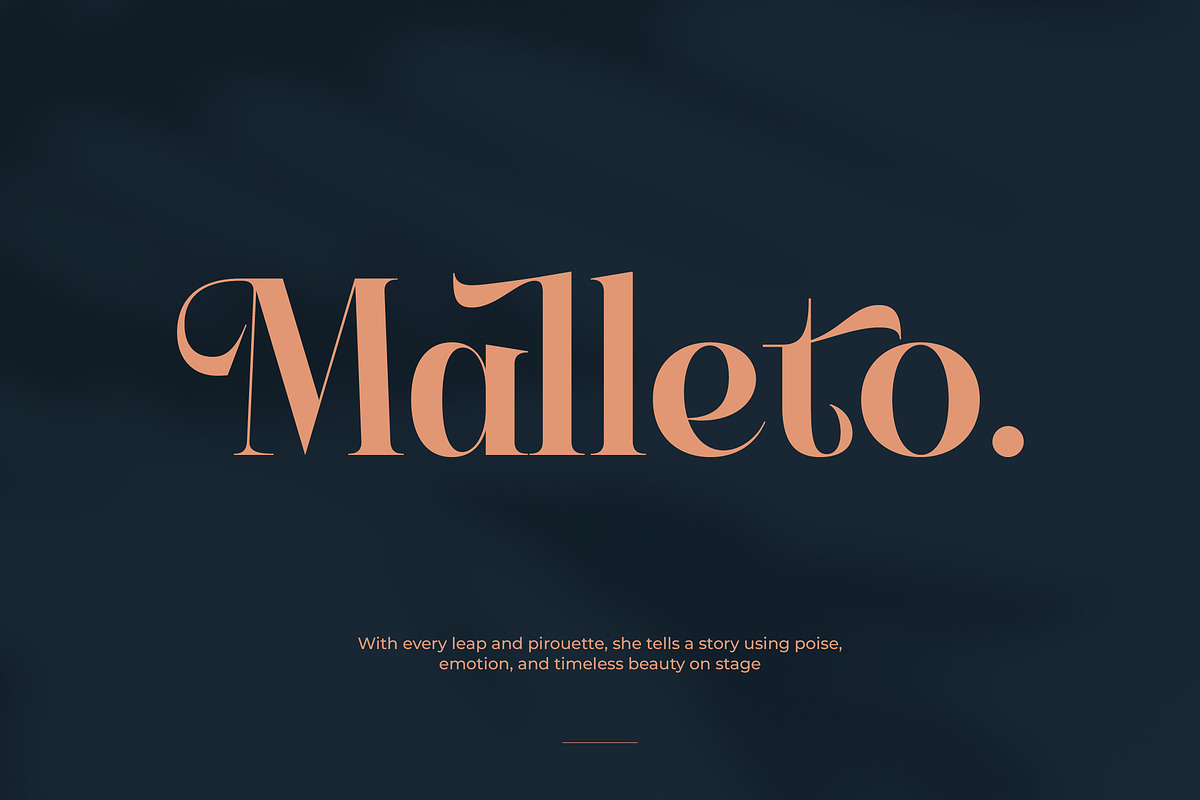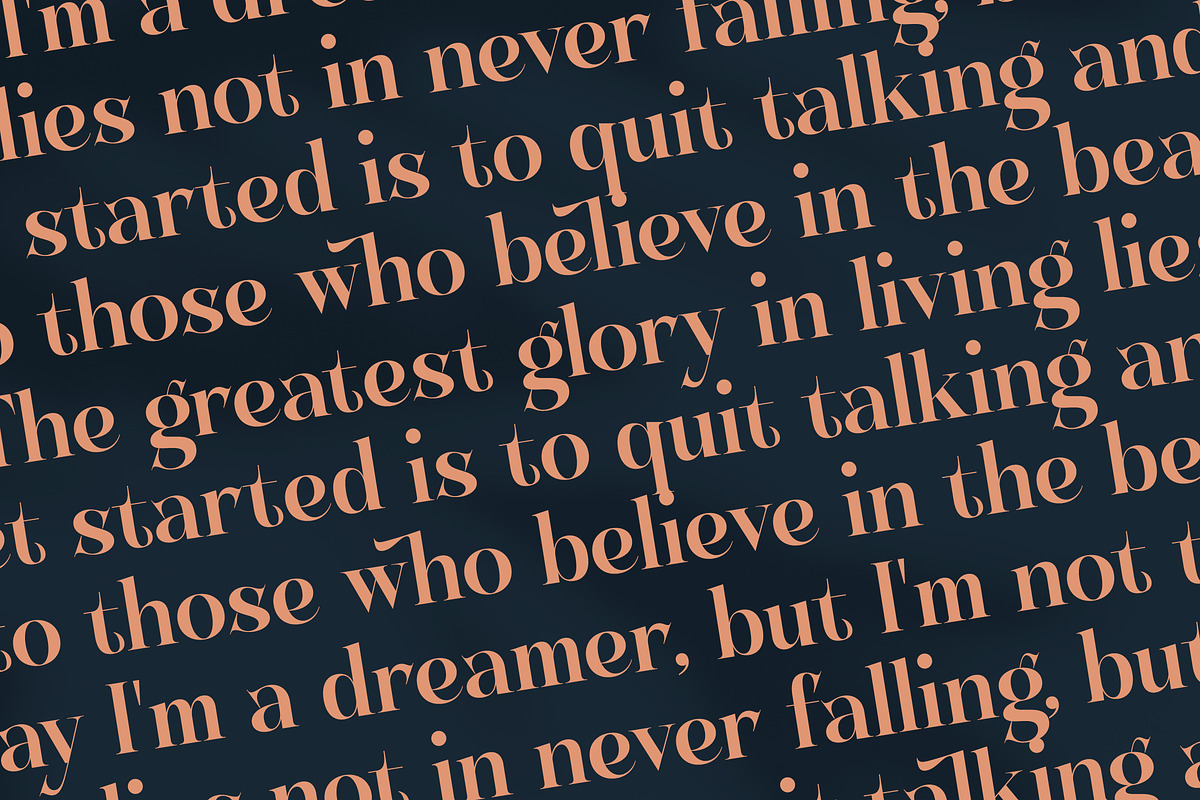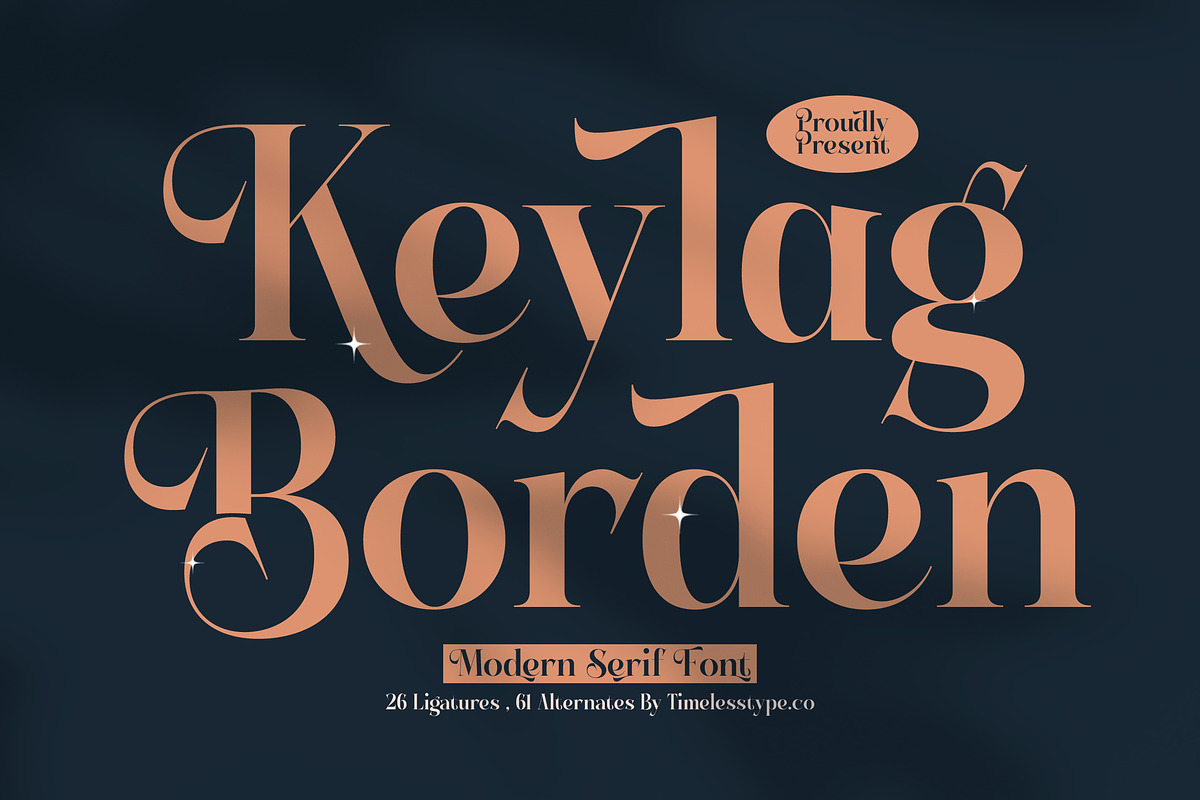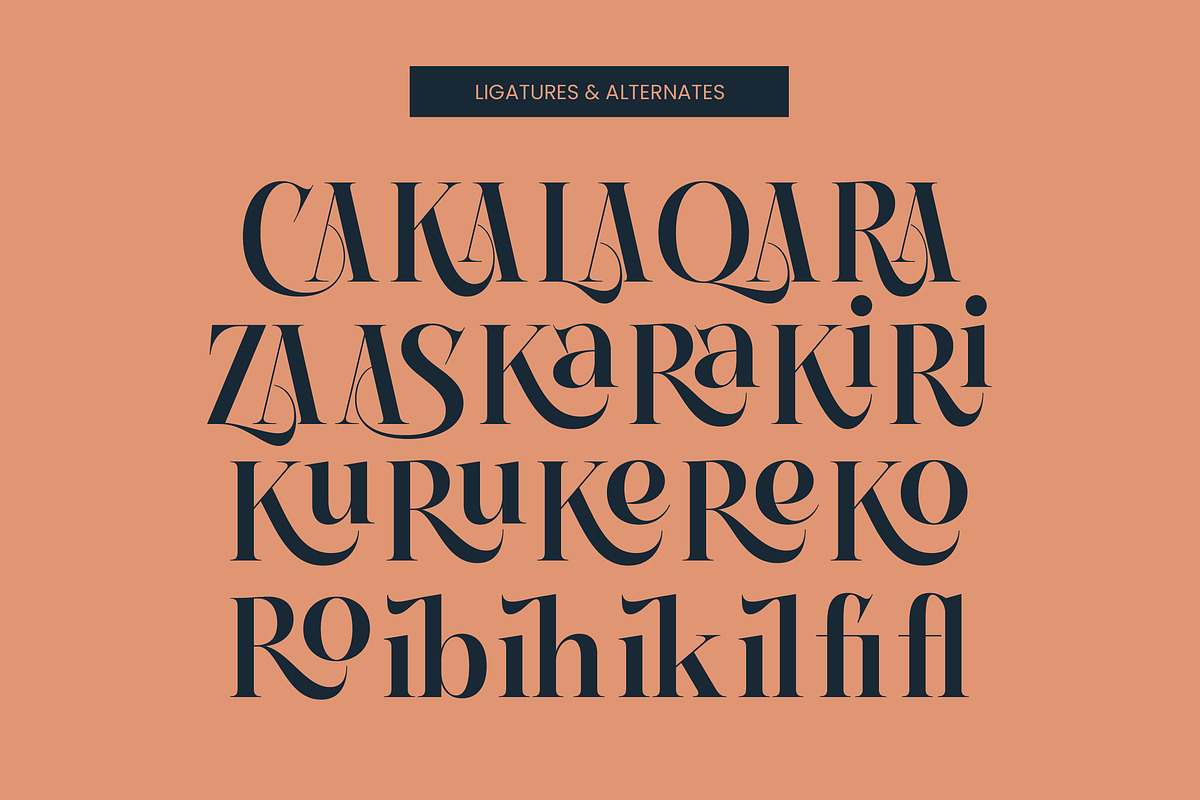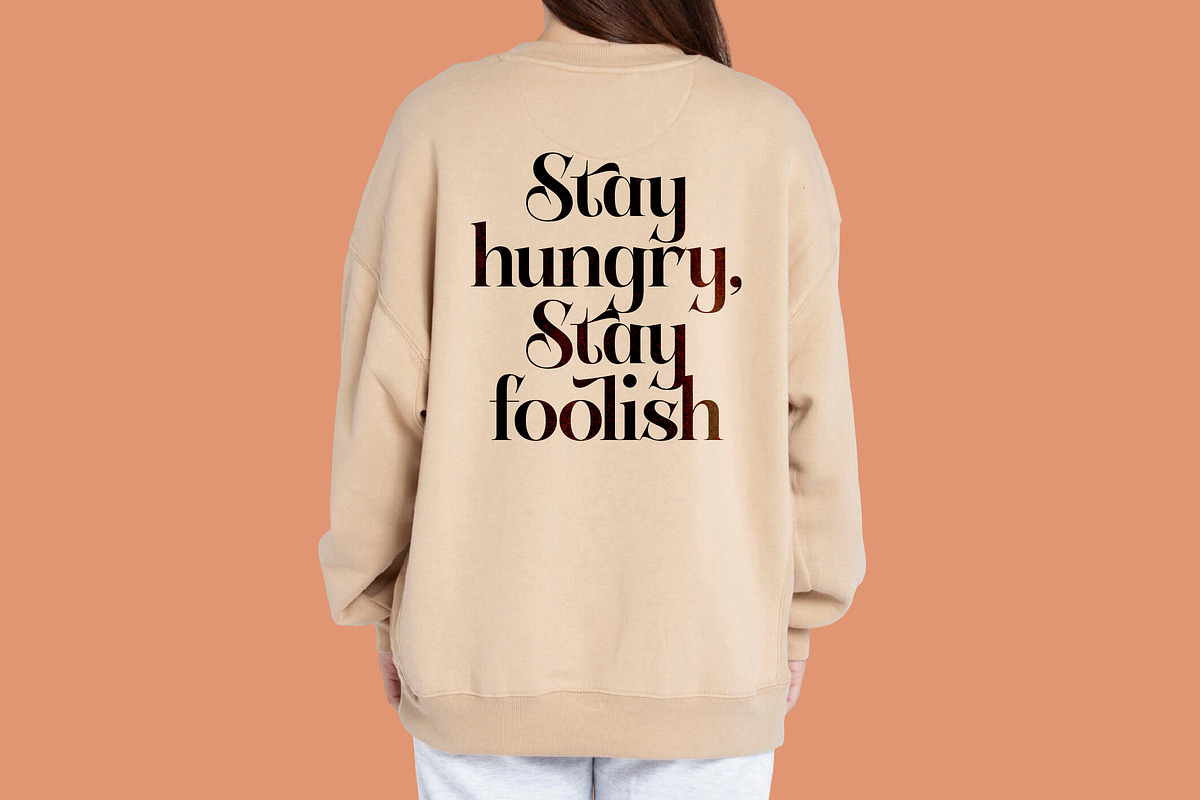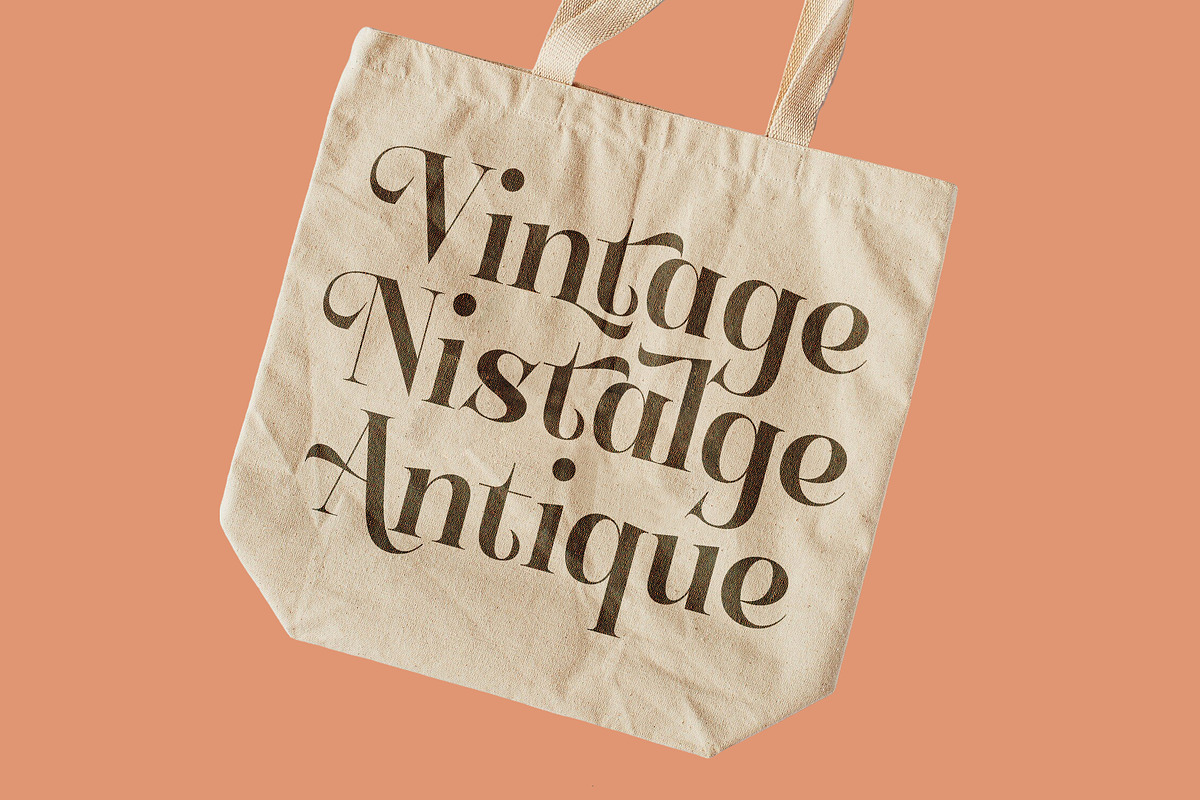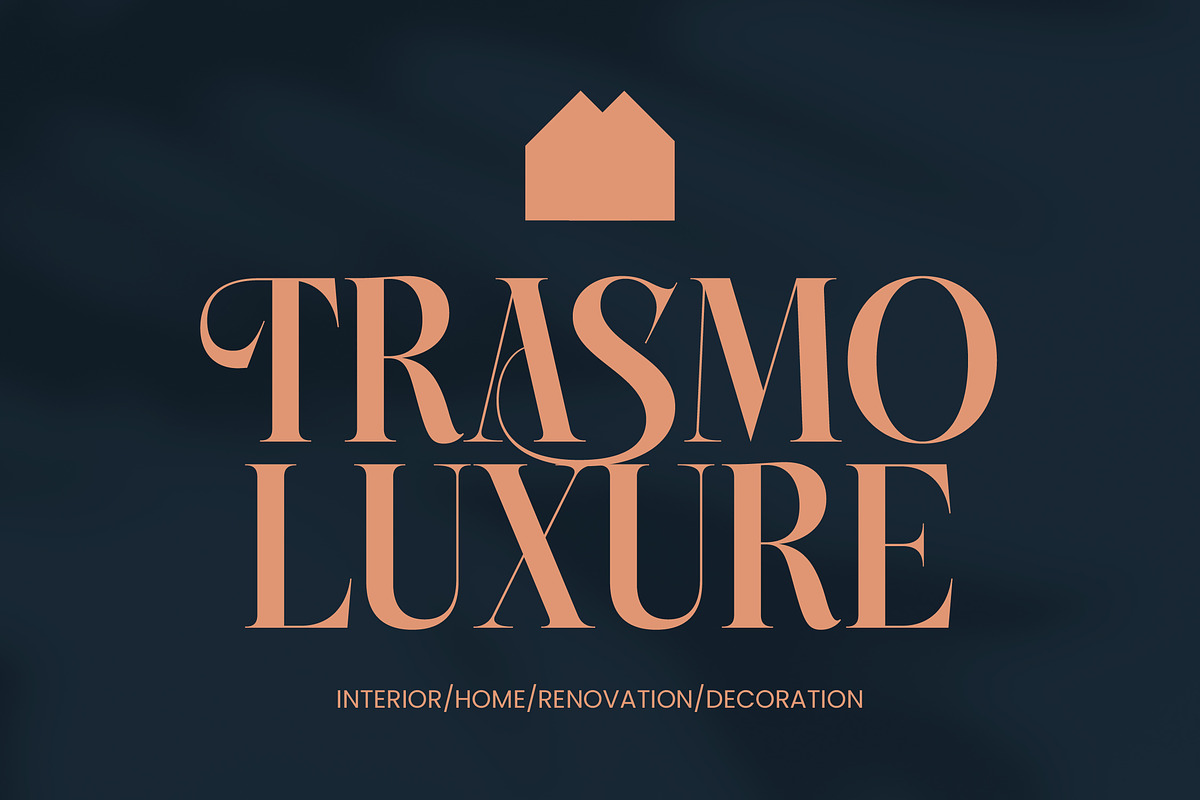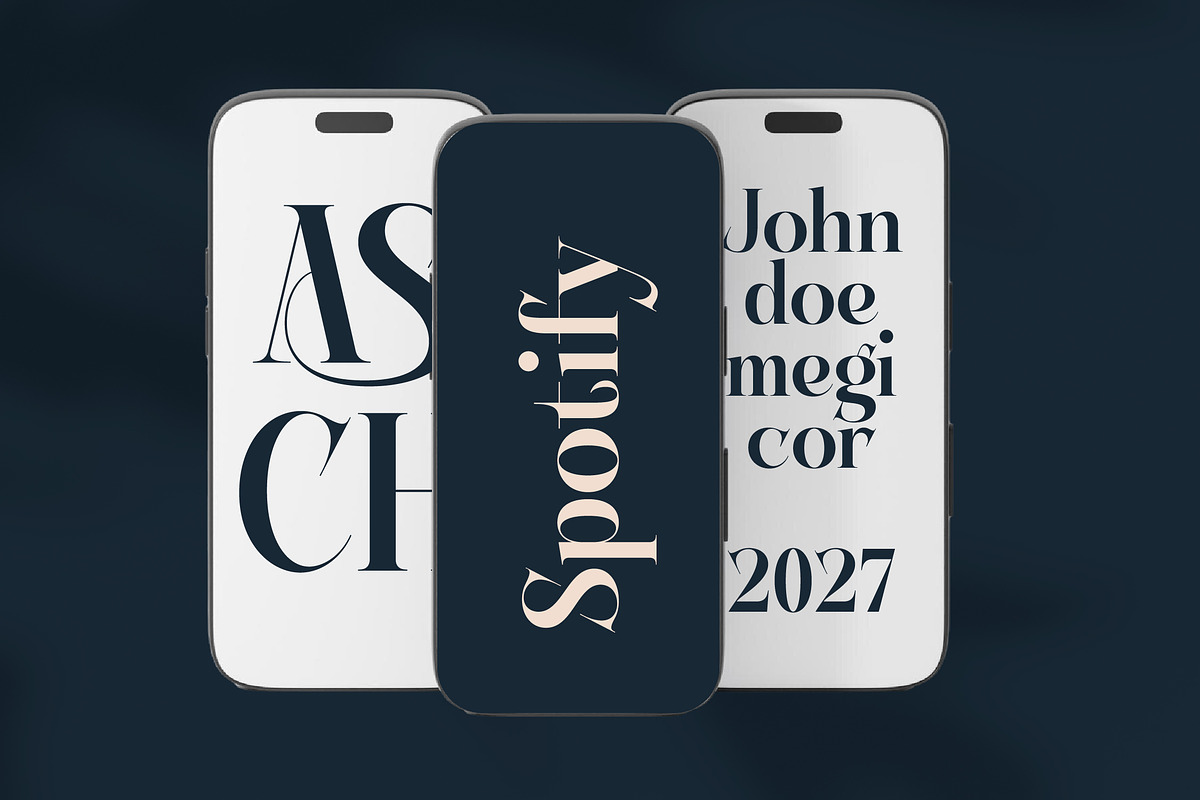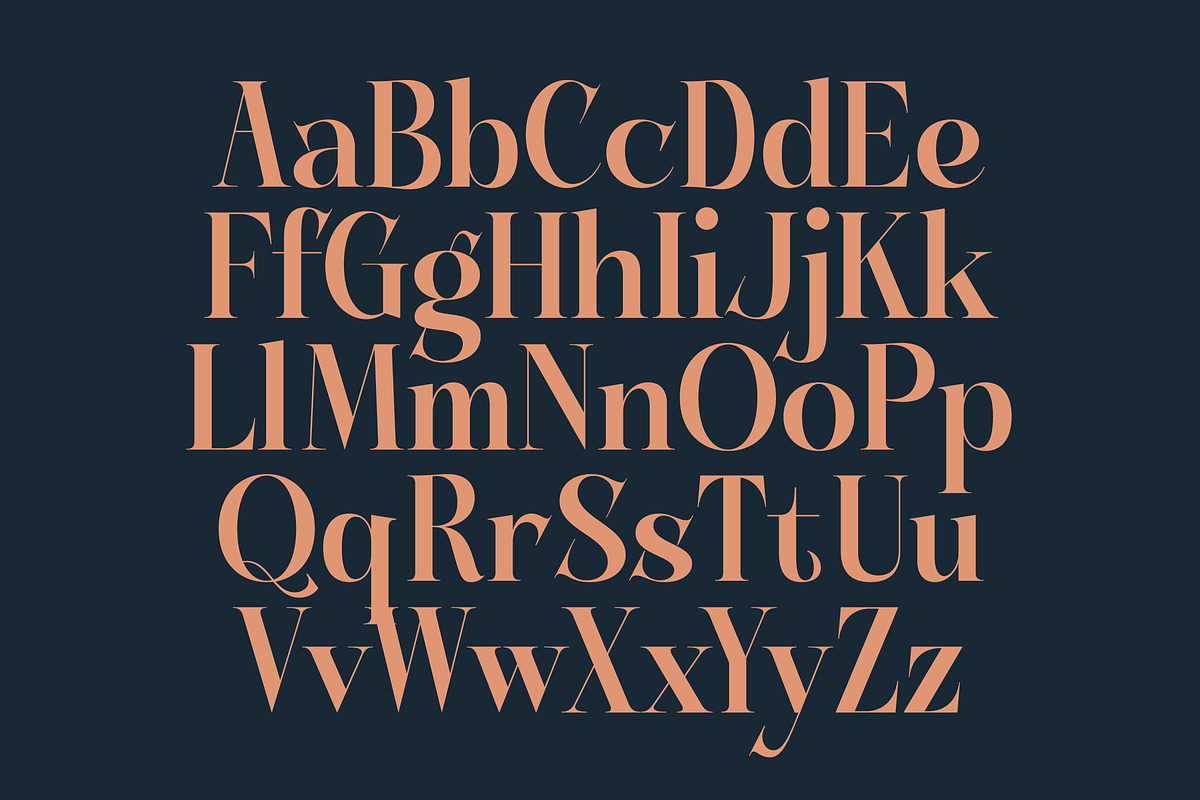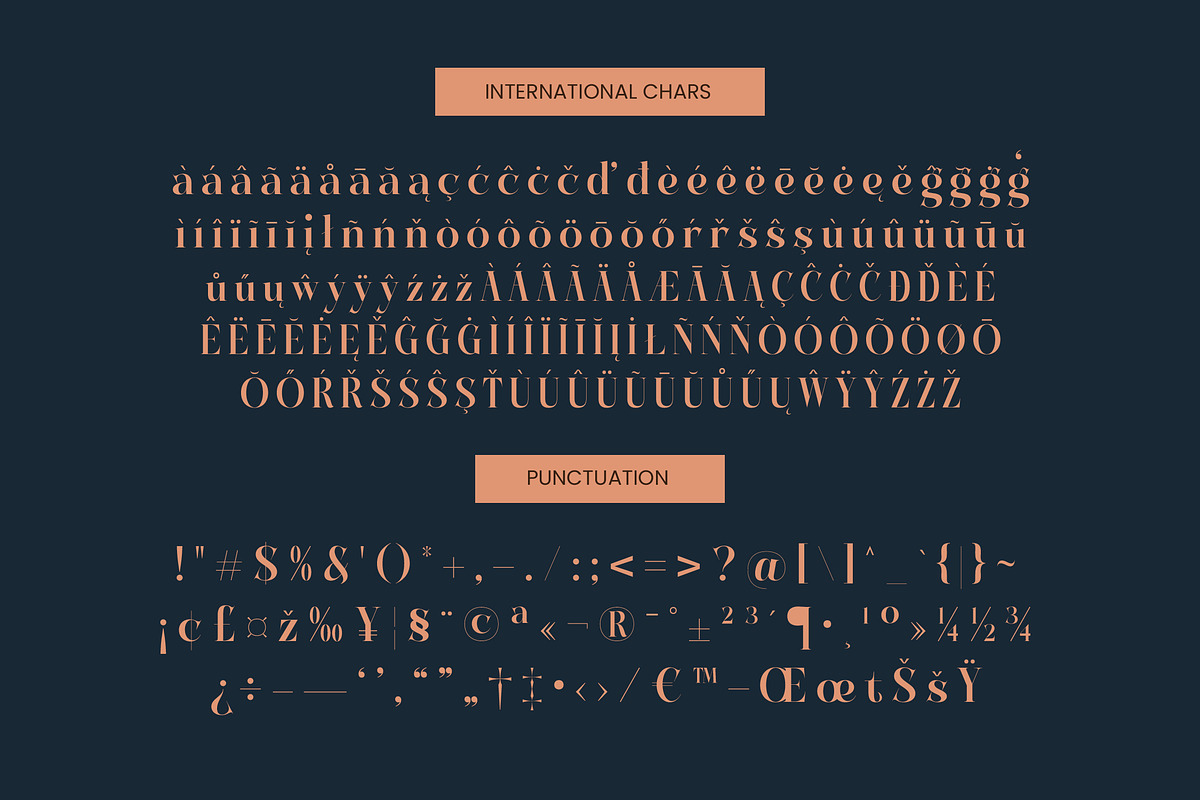
Keylag Borden Modern Serif
Elevate your visual identity with the breathtaking elegance of Keylag Borden. This typeface strikes a perfect balance between timeless grace and contemporary edge, making it an essential tool for any discerning designer's kit.
Inspired by the glamorous world of high-end fashion magazines and the sleek lines of mid-century architecture, this font captures an atmosphere of refined luxury. Every curve and stroke is meticulously crafted to evoke a sense of prestige and artistic intention.
Defined by its sophisticated silhouette, this modern serif display is designed to make a lasting branding impact. With its luxury typography feel and high-contrast serif construction, it serves as the ultimate editorial font for projects that require a touch of class and distinction.
Perfectly aligned with the current modern serif trend, this typeface meets the demand for character-driven typography in a crowded market. It stands out among editorial display fonts by offering a unique visual rhythm that feels both heritage-inspired and forward-thinking.
This versatile typeface is the ideal choice for high-end logo design and comprehensive branding systems. From aesthetic editorial layouts to premium packaging, it brings a sophisticated flair to wedding invitations and high-street fashion campaigns.
The font is packed with technical excellence, featuring unique ligatures and expressive alternates that allow for custom-tailored designs. It also includes decorative swashes and full multilingual support with a comprehensive set of international characters to reach a global audience.
- Ligature 26 Alternate 61